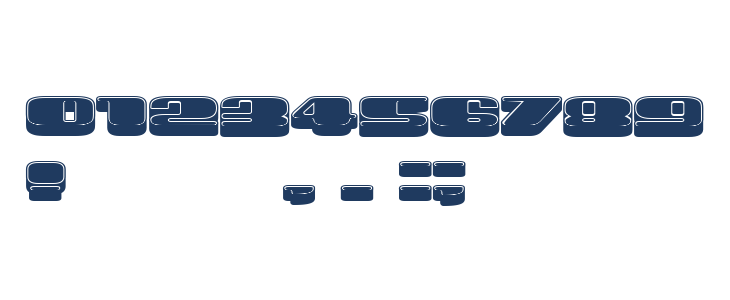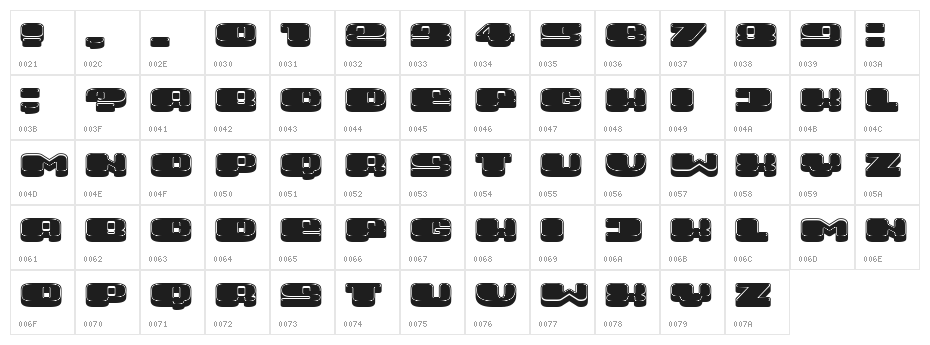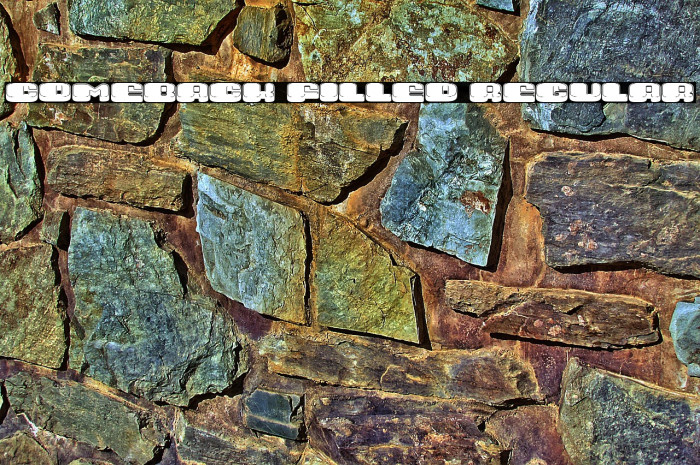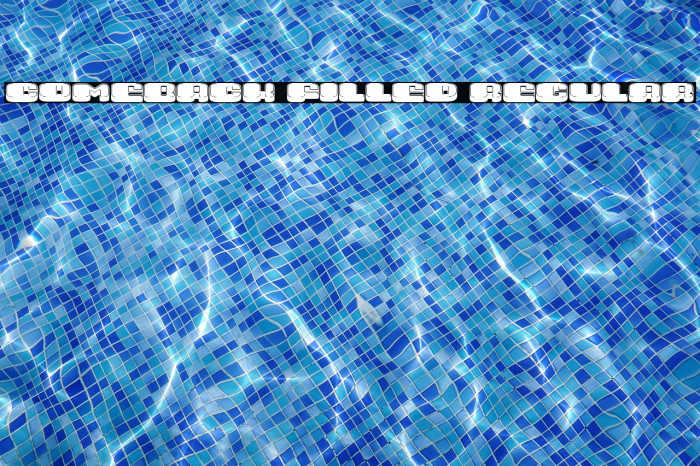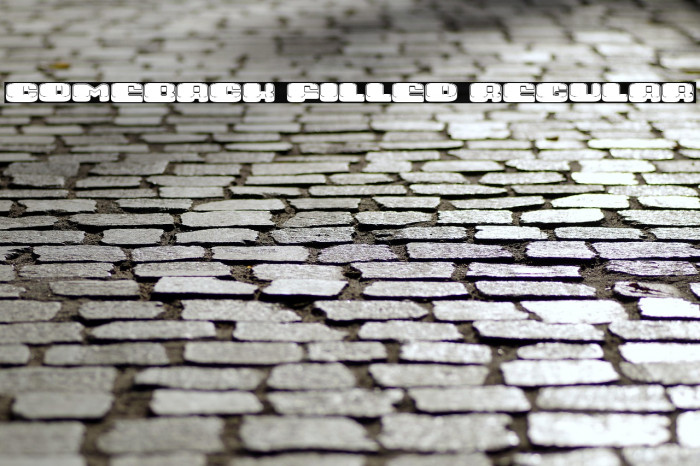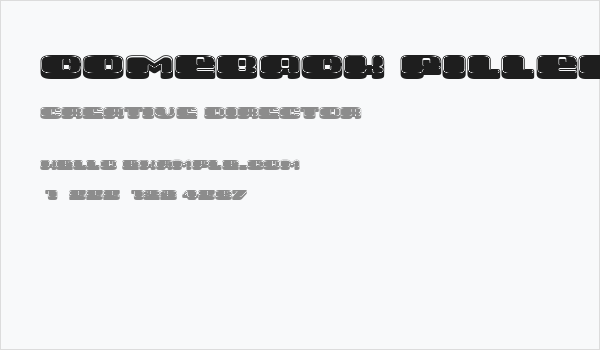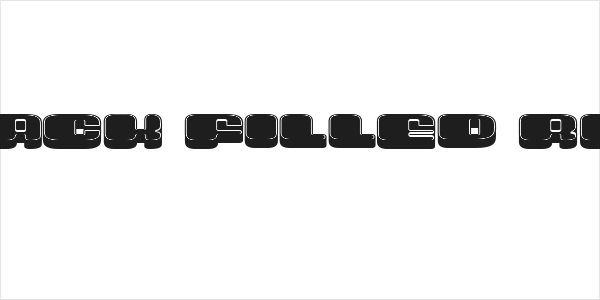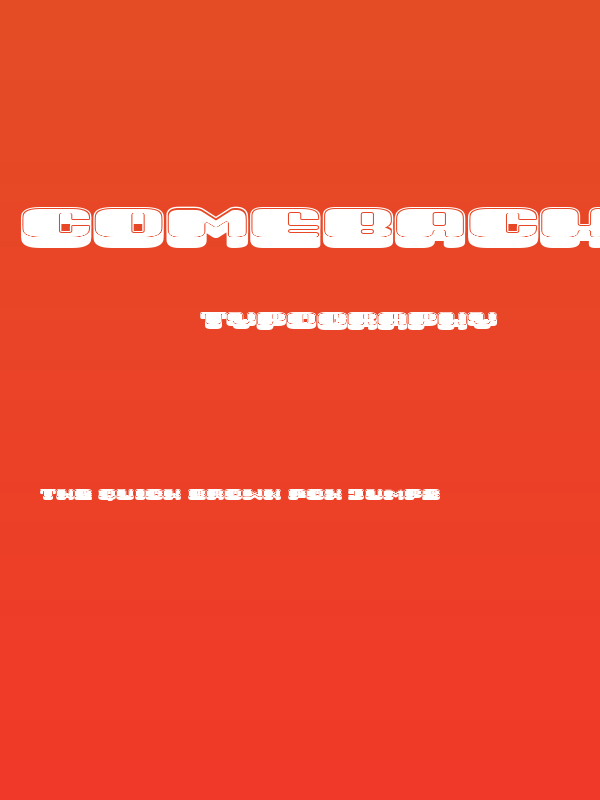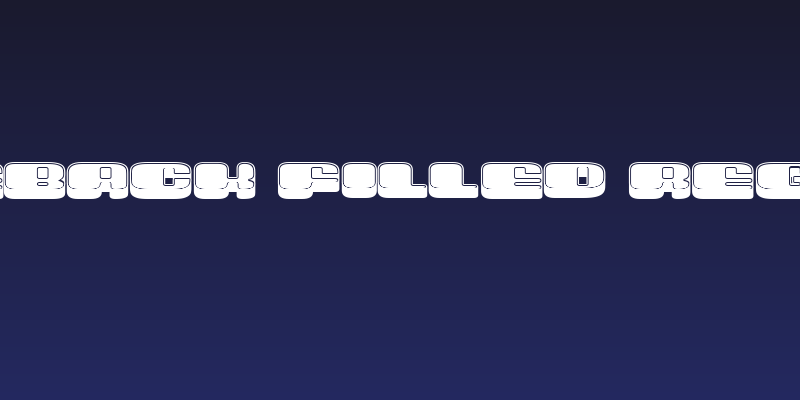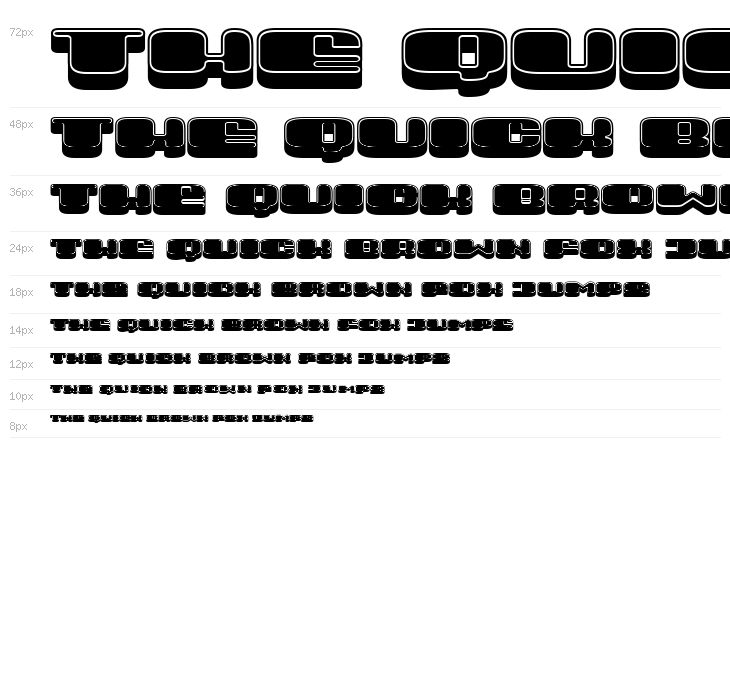
Comeback Filled Regular Font
Comeback Filled Regular Description
This font features a bold, rounded style with a filled interior and a distinct outline that creates a striking visual impact. The characters are uniformly wide, giving a sense of stability and strength. The uppercase and lowercase letters maintain a consistent design, enhancing readability while adding a playful yet robust aesthetic. The numbers and special characters follow the same design principles, ensuring a cohesive look across all text elements. This font's unique style makes it stand out, perfect for projects that require a bold statement.
| Proposed Projects | Ideal for posters, logos, branding materials, and any design requiring a strong visual presence. |